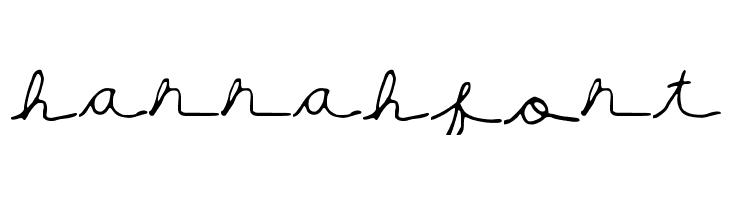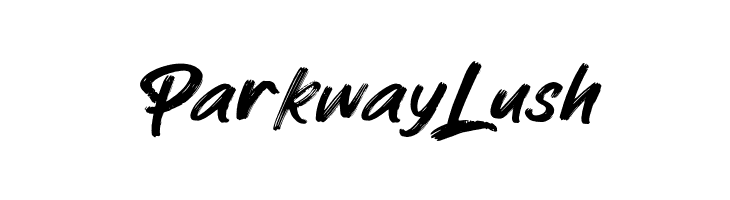
A bold, brush-style font with dynamic, artistic strokes.
A graceful and elegant script font with flowing, continuous strokes.
A semi-condensed serif font with semi-bold weight, offering a classic and readable style.
A bold, geometric font with a modern, outlined design.
A bold, grunge-style font with a hand-drawn, distressed appearance.
A fluid, cursive script font with elegant, connected strokes.
A playful, handwritten font with tall, narrow letters and flowing curves.
A graceful cursive script font with elegant, flowing lines.
A futuristic, angular font with a bold, dynamic slant.
A bold, angular font with a rugged, prehistoric style.